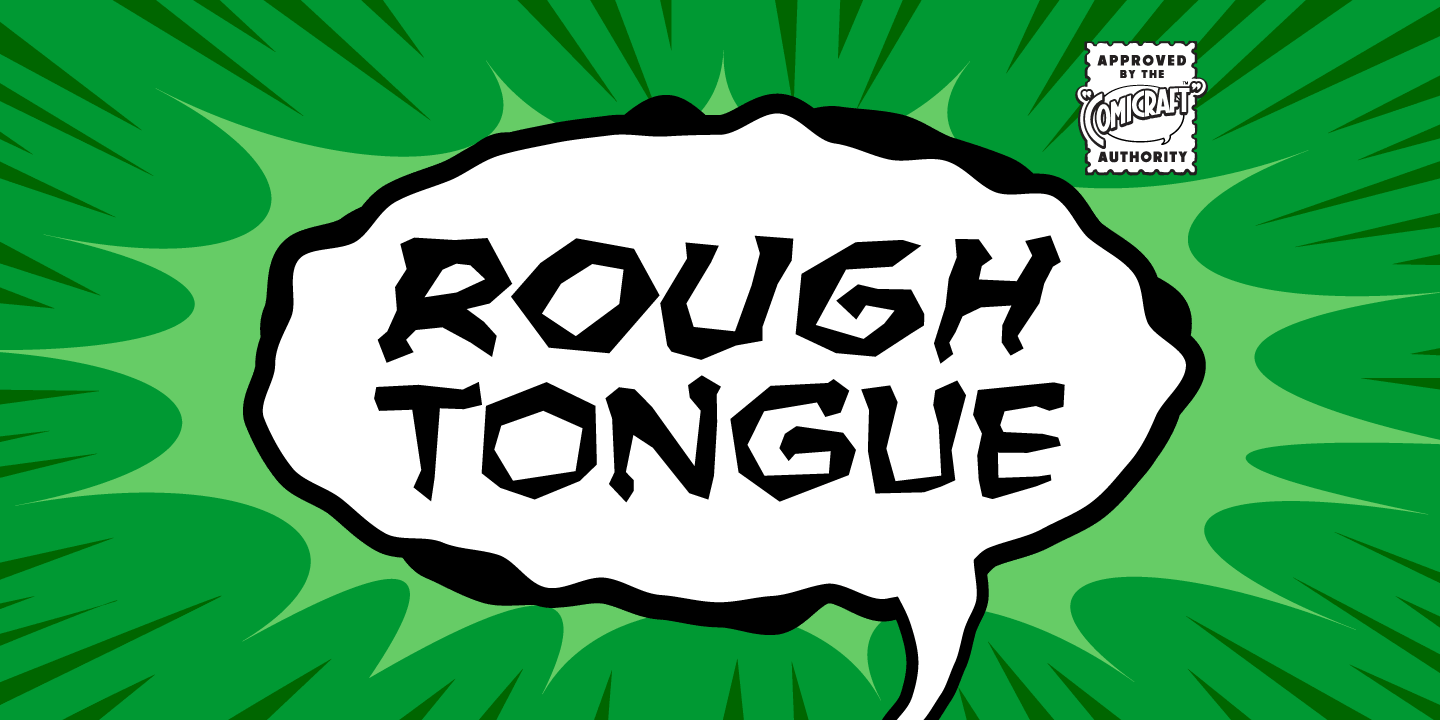
Rough Tongue Font is perfect for grunge band logos, underground music venues, alternative rock album covers, rebellious streetwear branding, punk fashion designs, urban art galleries, edgy advertising campaigns, skateboard graphics, tattoo shop signage, protest movement materials, and any project that requires raw authenticity with rebellious underground character.
What makes Rough Tongue Font exciting is its uncompromising expression of raw rebellion and underground culture through distressed letterforms that capture the gritty essence of street art and alternative music scenes. This aggressive typeface features deliberately rough textures with intentional imperfections that convey authenticity, defiance, and anti-establishment attitude. The font's rough character adds instant street credibility and rebellious appeal to any design, making it perfect for brands celebrating counterculture and alternative lifestyle expressions.
Rough Tongue Font comes in multiple font families including Regular, Bold, Distressed, Condensed, Heavy, and Underground variations, providing designers with comprehensive options to create rebellious compositions and achieve the perfect grunge aesthetic for alternative-focused design projects.
Whether you're developing underground music branding, creating alternative fashion campaigns, or designing rebellious promotional materials, Rough Tongue Font Free Download offers the perfect solution for projects demanding authentic street character and underground authenticity. This aggressive typeface excels in display applications where rebellious presence is essential, ensuring your designs communicate raw energy and alternative culture values. The distressed character and underground styling of Rough Tongue Font make it an indispensable tool for designers who prioritize street authenticity, rebellious expression, and alternative counterculture aesthetics in their typographic selections.